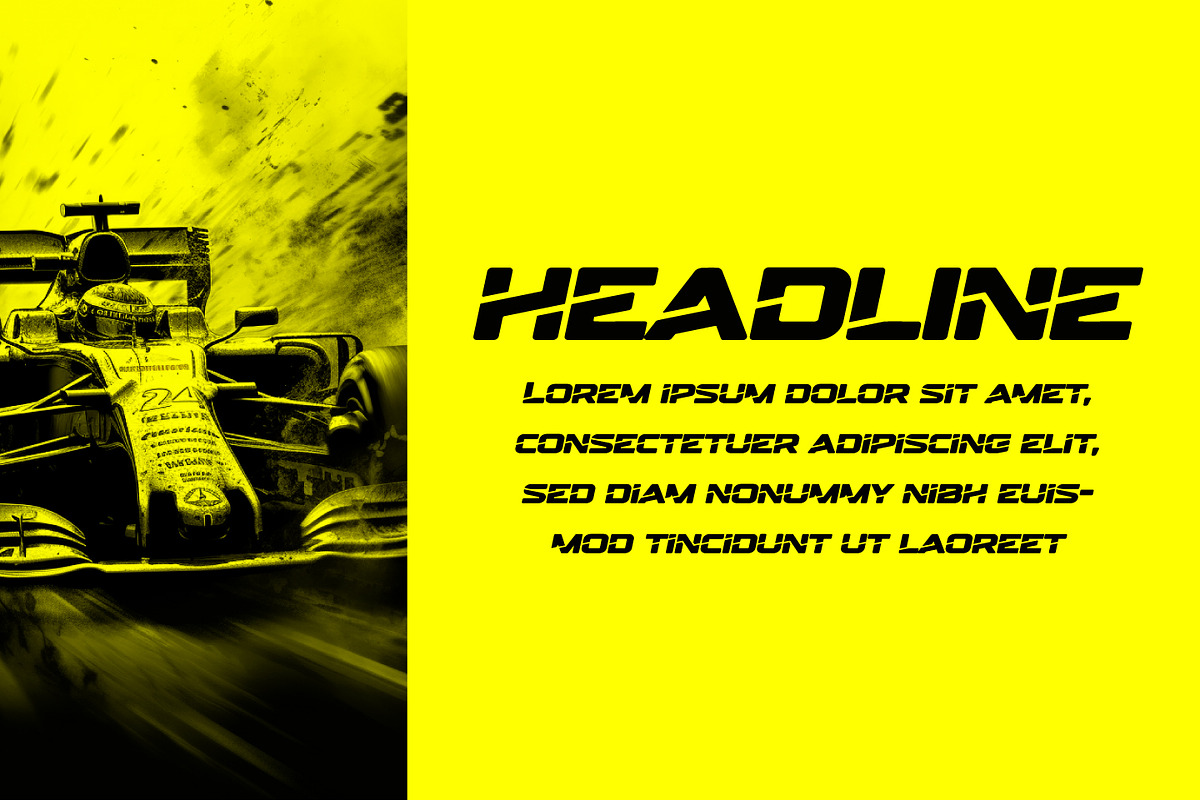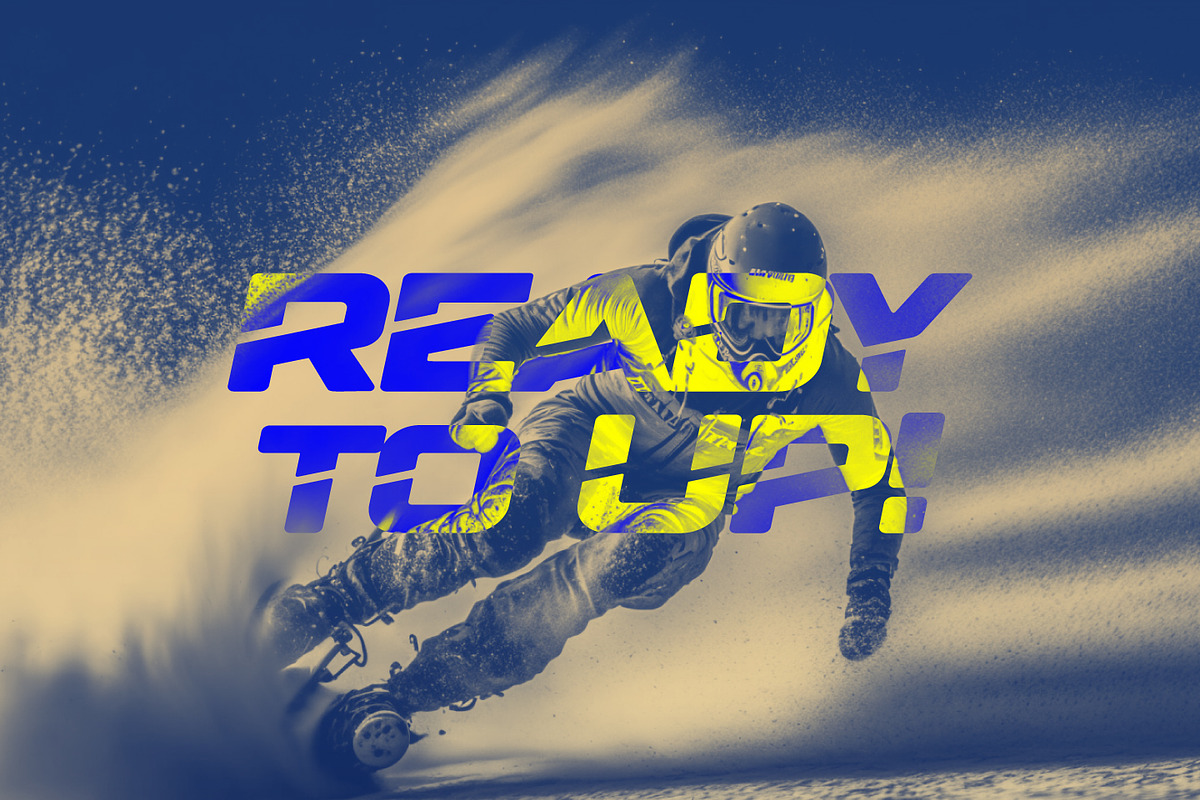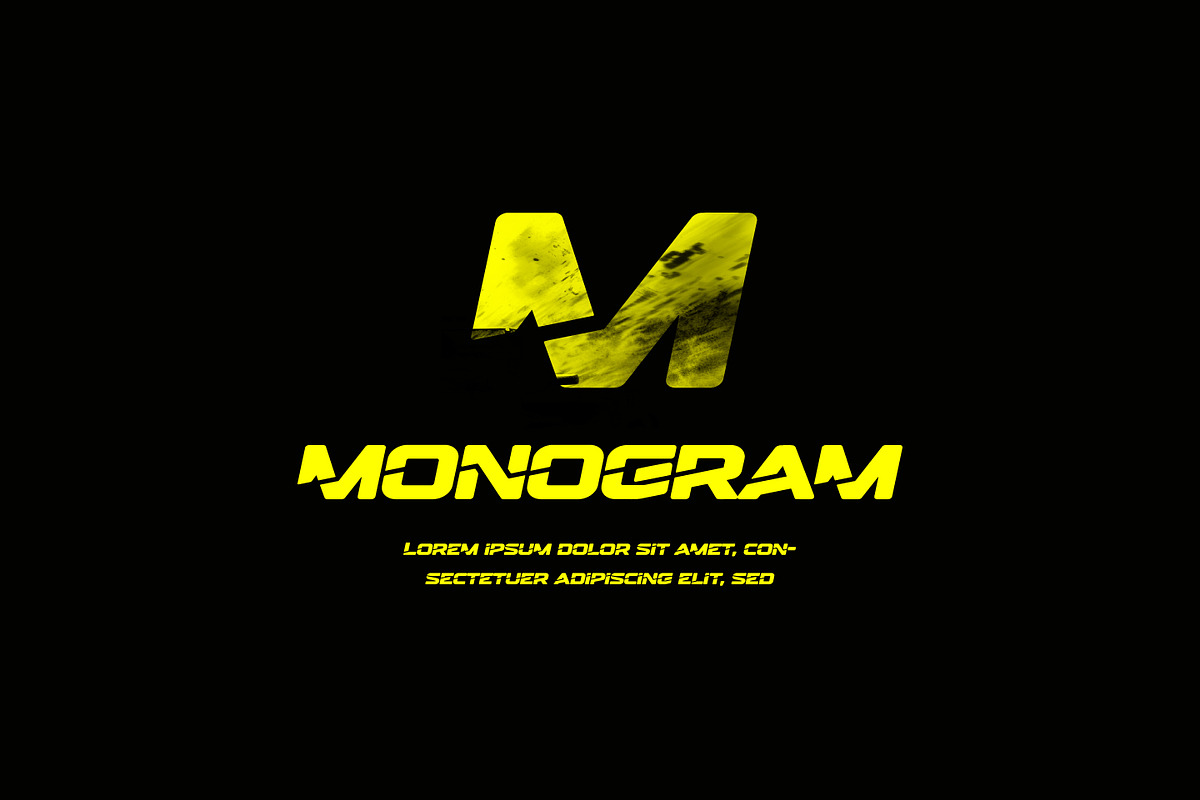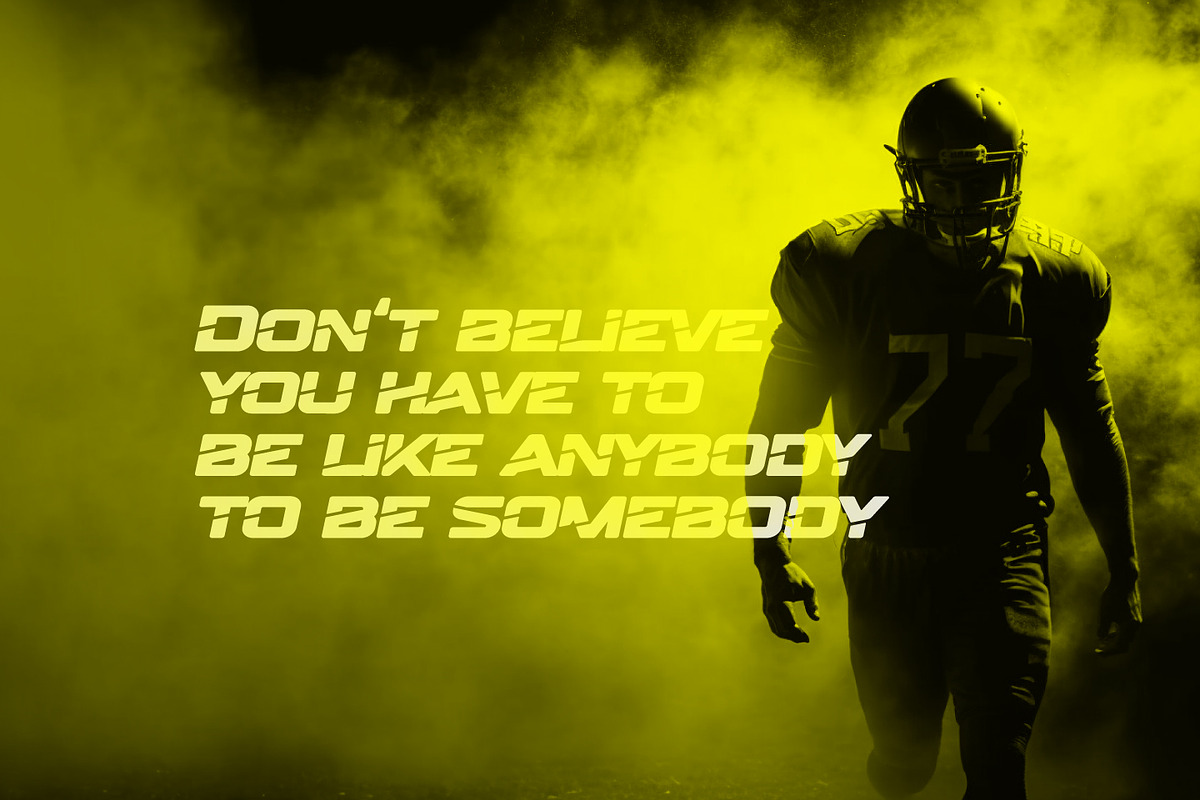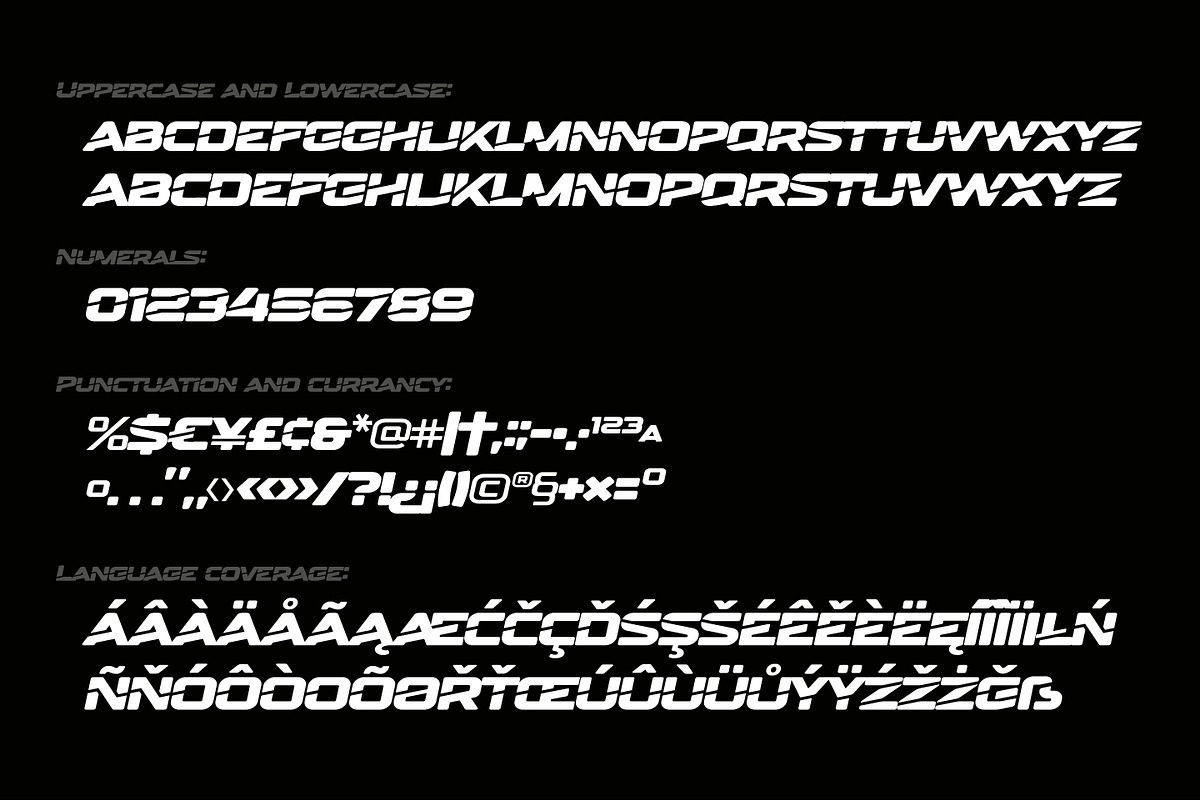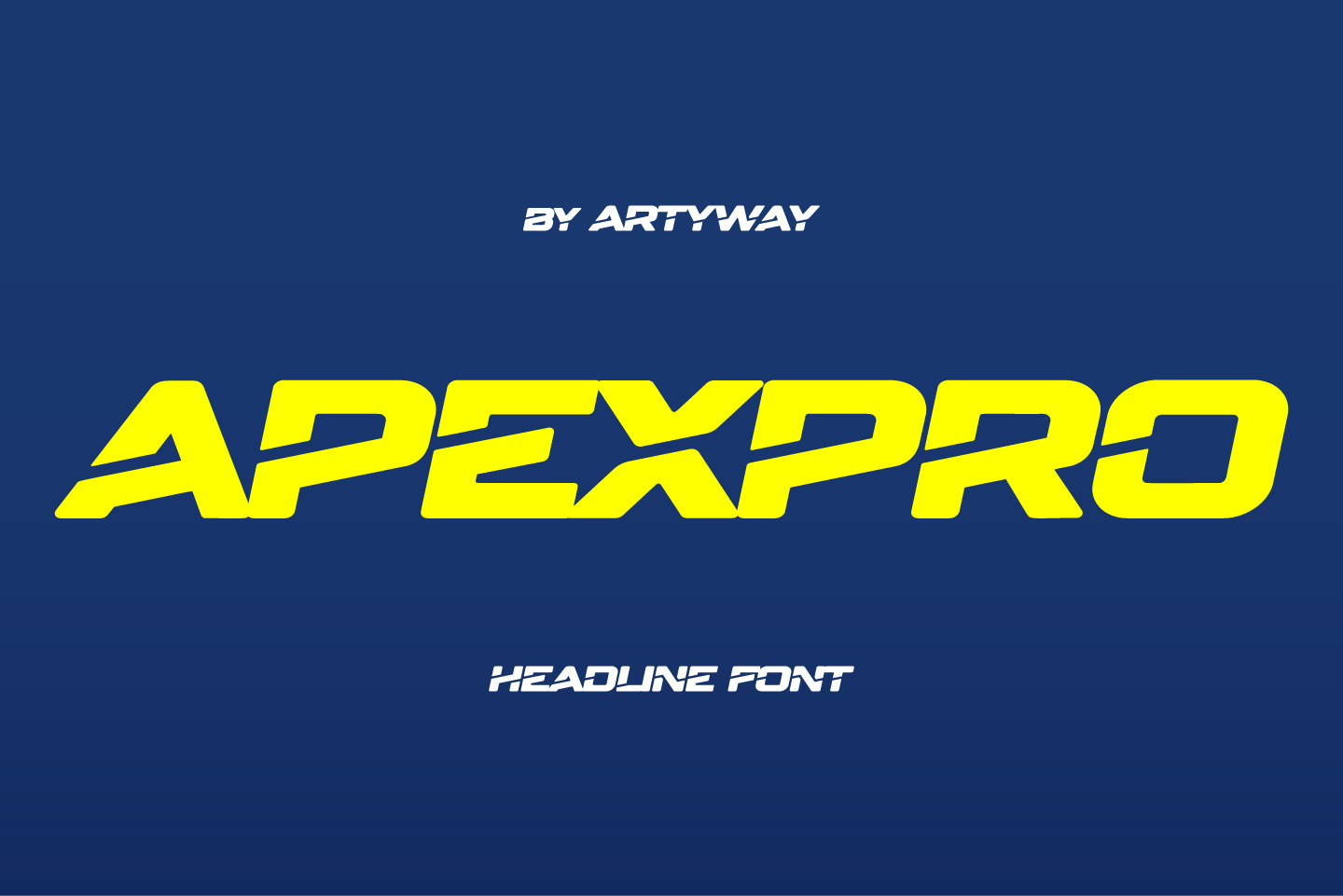
Sport Headline & Logo Font
Unleash the Power of Motion and Speed with the ApexPro – a dynamic, sporty font designed for those who crave action, speed, and innovation. This typeface is meticulously crafted to embody the essence of the automotive world, fitness, and cutting-edge technology.
- Style: The ApexPro boasts a rounded and soft appearance with bold, italic, and slashed elements, giving it a sporty and energetic vibe. The letters are carefully crafted, providing a clean and sharp visual for maximum impact.
- Design Elements: Inspired by the sleek lines of high-speed vehicles, the font carries a rounded, beveled, and cutout aesthetic, adding a touch of modernity and innovation. The use of military and stencil elements infuses a sense of power and dynamism.
- Versatility: The ApexPro is not just a font; it's a statement. Perfect for automotive enthusiasts, gym-goers, and tech aficionados, it seamlessly blends into various contexts such as sports events, gaming interfaces, and futuristic designs.
Why the ApexPro font?
- For Speed Enthusiasts: The ApexPro brings the thrill of high-speed action to your designs.
- For Fitness Brands: Reflect the energy and dynamism of your fitness brand with the ApexPro.
- For Gaming Interfaces: Elevate your gaming experience with a font that resonates with movement and power.
- Languages Covered: Multilingual support for a global audience.
- Numbers, Symbols, and Punctuation: A comprehensive set for versatile use.
- Lowercase Letters: Lowercase letters for a balanced and cohesive look.